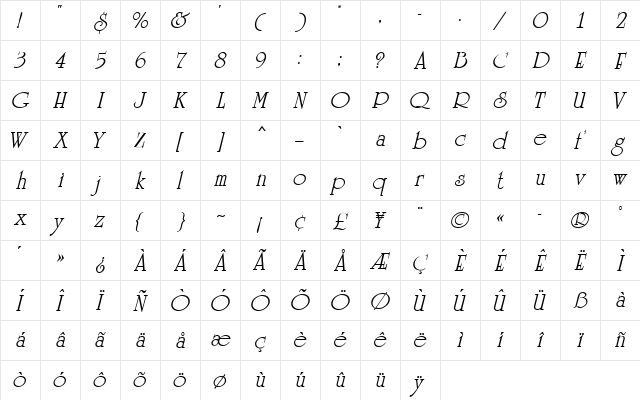
Celtic MN Italic
| Foundry | Mecanorma International . \ |
Design Context for Celtic MN Typeface
Celtic MN offers clean, dependable letterforms without strong stylistic allegiance, making it a practical choice for designers who need flexibility. Its italic angle brings a sense of urgency and motion to the letterforms.
Pro Tip: Use Celtic MN for emphasis, pull quotes, and subheadings where its slanted energy can add rhythm to the layout.